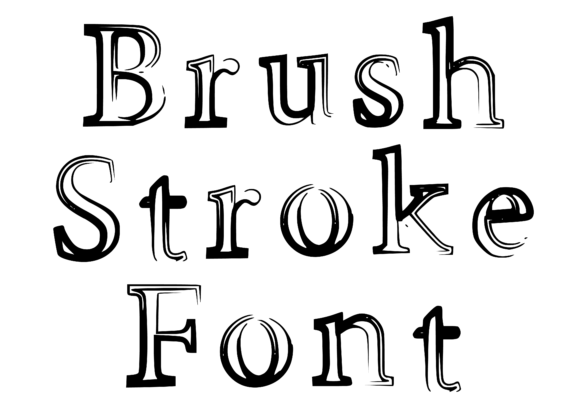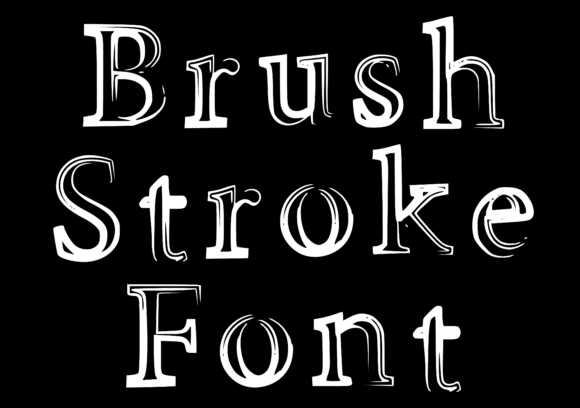
Introducing Brush Stroke Font: The Cool and Unique Display Font You Need
Are you tired of using the same old fonts in your design projects? Do you want to add a touch of personality and uniqueness to your creations? Look no further than Brush Stroke Font! This cool and unique display font is sure to take your designs to the next level. With its distinctive brush-stroked texture, Brush Stroke Font adds a level of sophistication and elegance to any project.
What is Brush Stroke Font?
Brush Stroke Font is a display font that mimics the look of brush strokes, giving it a hand-painted or hand-drawn feel. The font features bold, expressive lines and a textured quality that gives it a organic, human touch. It’s perfect for designers and crafters who want to add a personal touch to their work.
Key Features of Brush Stroke Font
• Unique and eye-catching design: Brush Stroke Font is sure to grab attention with its bold, expressive lines and textured quality.
• High-quality and scalable: The font is designed to be highly legible and scalable, making it perfect for use in a variety of design projects, from logos and headings to posters and social media graphics.
• Versatile: The font can be used in a wide range of design projects, from elegant and sophisticated to playful and creative.
Why Use Brush Stroke Font?
So why should you use Brush Stroke Font in your design projects? Here are just a few reasons:
• Add a personal touch: Brush Stroke Font gives your designs a personal, human touch that sets them apart from more generic fonts.
• Stand out from the crowd: With its unique and eye-catching design, Brush Stroke Font is sure to help your designs stand out from the crowd.
• Perfect for creative projects: Brush Stroke Font is perfect for creative projects, such as art, craft, and design.
• Great for headings and titles: The font is ideal for use in headings and titles, where you want to make a bold statement.
Tips and Tricks for Using Brush Stroke Font
Here are a few tips and tricks for getting the most out of Brush Stroke Font:
• Use it sparingly: Brush Stroke Font is best used sparingly, such as in headings or titles.
• Experiment with colors: Try out different colors to see what works best with the font.
• Pair it with other fonts: Brush Stroke Font pairs well with simpler fonts, such as sans-serif fonts.
• Pay attention to legibility: Make sure the font is legible, especially at smaller sizes.
In conclusion, Brush Stroke Font is a cool and unique display font that is sure to add a touch of personality and elegance to your design projects. With its distinctive brush-stroked texture and bold, expressive lines, it’s perfect for designers and crafters who want to add a personal touch to their work. So why not give it a try? Add Brush Stroke Font to your projects confidently and see the amazing results for yourself!